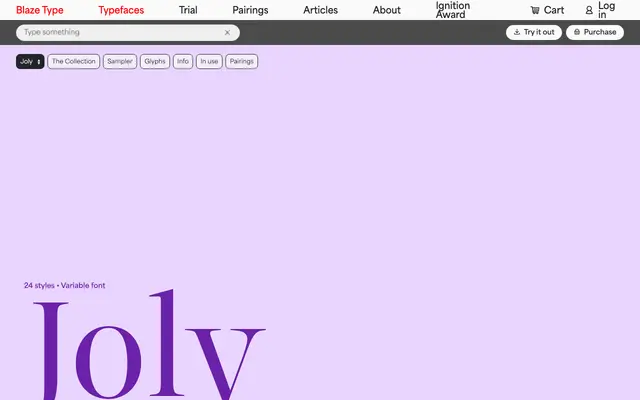
Joly
Blaze Type · Léon Hugues · 2021
A Dutch-inspired transitional serif by Léon Hugues, structured across three optical sizes for use from continuous text to display settings.
Begun as a revival research project drawing on 18th-century Dutch type, Joly developed into a fully contemporary family of 24 styles spanning Text, Normal and Display subfamilies, each with four weights and matching italics. The three optical sizes are calibrated for different reading distances and scales, making the family practical for editorial systems and complex typographic layouts. A variable font file is included alongside static TTF and WOFF formats.
Inspired by 18th-century Dutch type, Joly sits in the transitional serif tradition with classical proportions adapted for contemporary use across multiple optical sizes.